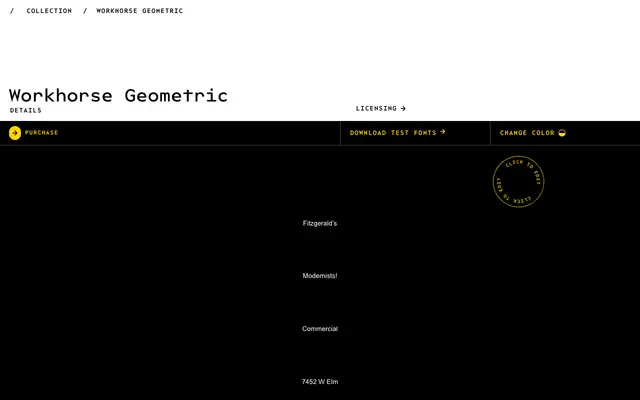
Workhorse Geometric
Workhorse Type Foundry · Adrian Kimball · 2021
A geometric sans-serif spanning eight weights and three optical sizes, drawing on Futura and early geometric precedents such as Kabel and Erbar-Grotesk.
Built across 48 styles with a variable font file included, the family covers Hairline through Black with matching obliques at Regular, Text and Micro optical sizes. Eleven stylistic sets offer alternate characters including flat-sided and minimal G variants, a two-storey lowercase a, and a modernist ampersand. The foundry designed matching Inline, Stencil and Dot display companions to allow consistent transitions across type treatments.
A classic geometric sans-serif drawing on Futura and early 20th-century geometric precedents such as Kabel and Erbar-Grotesk. The design is built around optically corrected geometry across three optical sizes, placing it firmly in the geometric sans tradition.